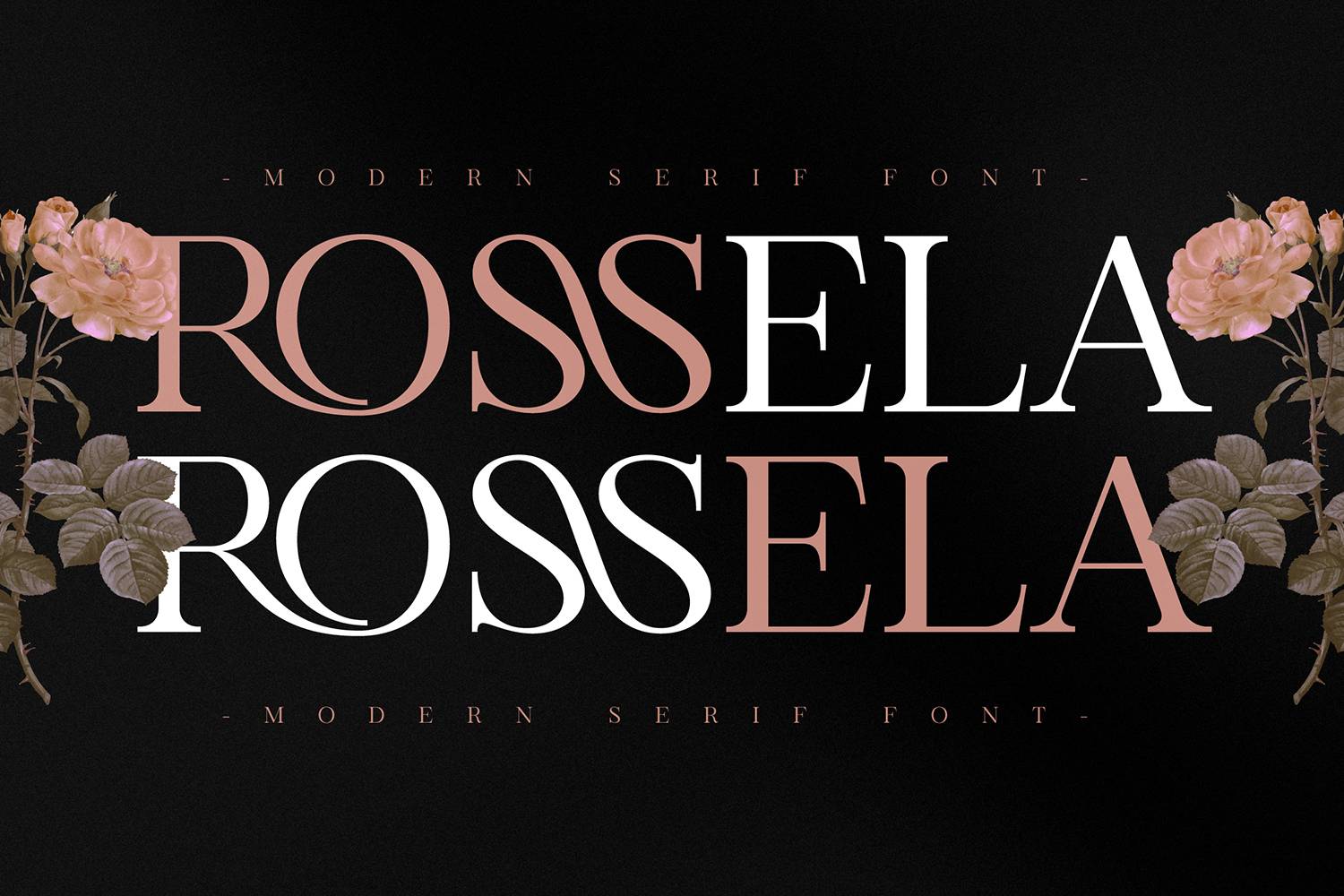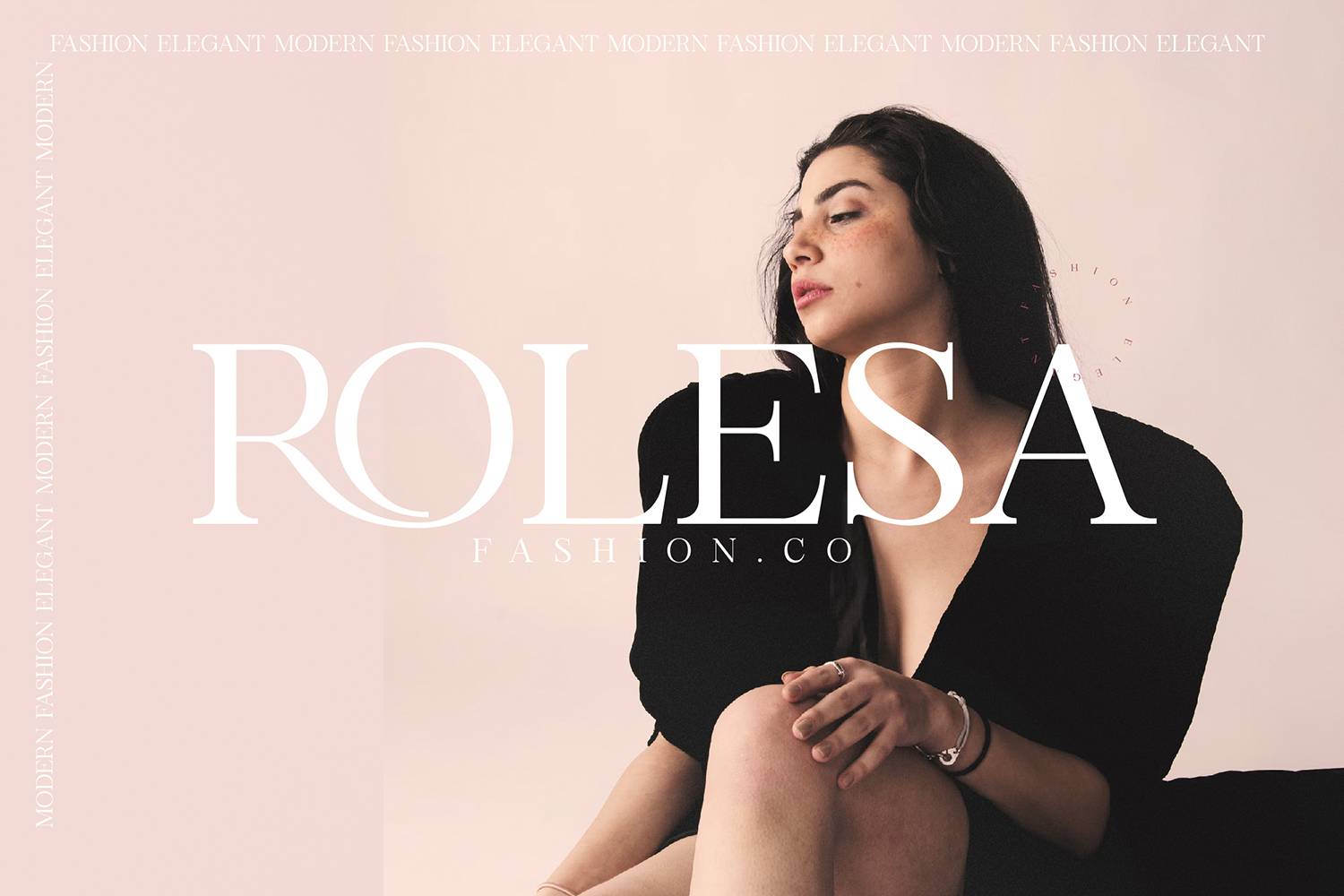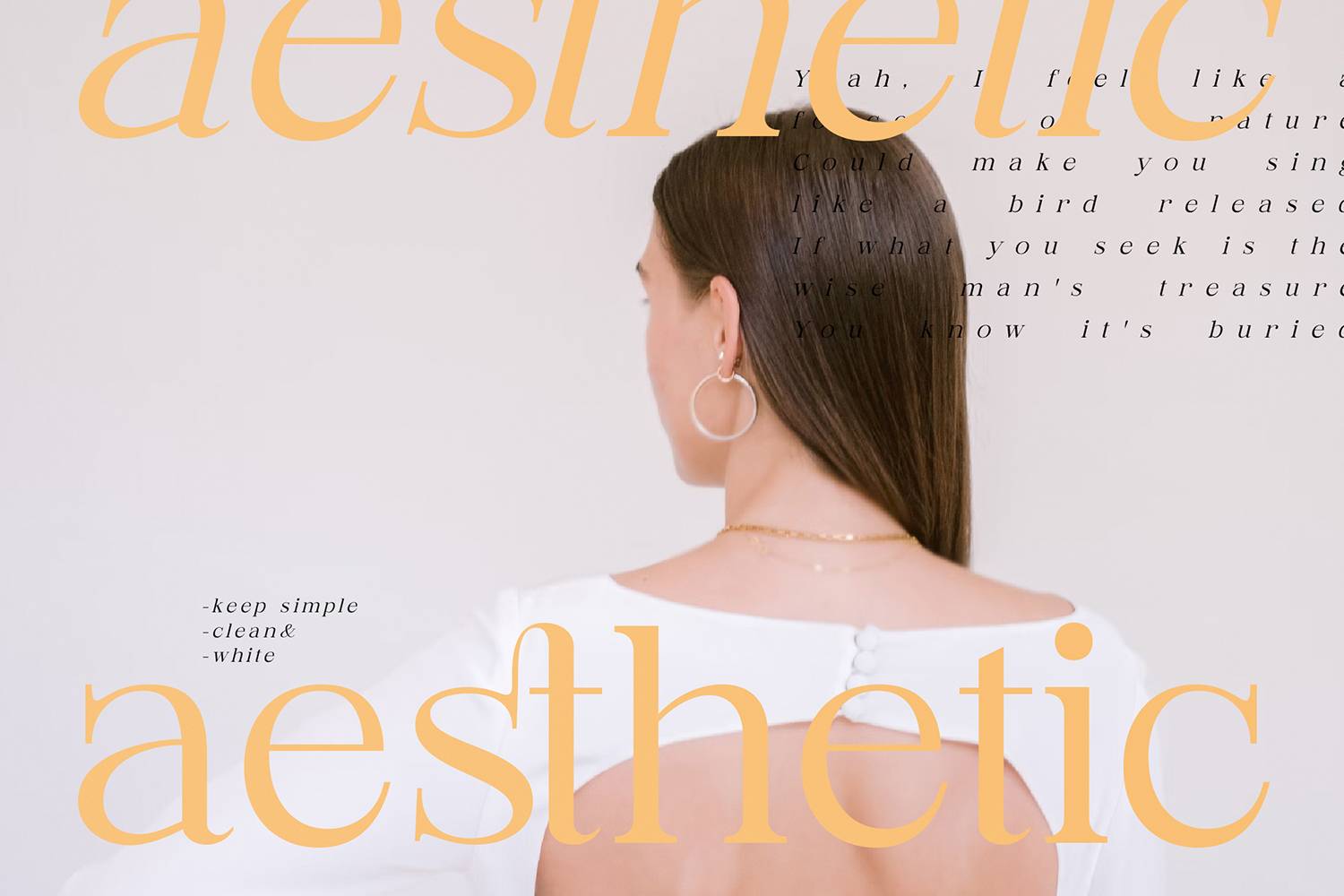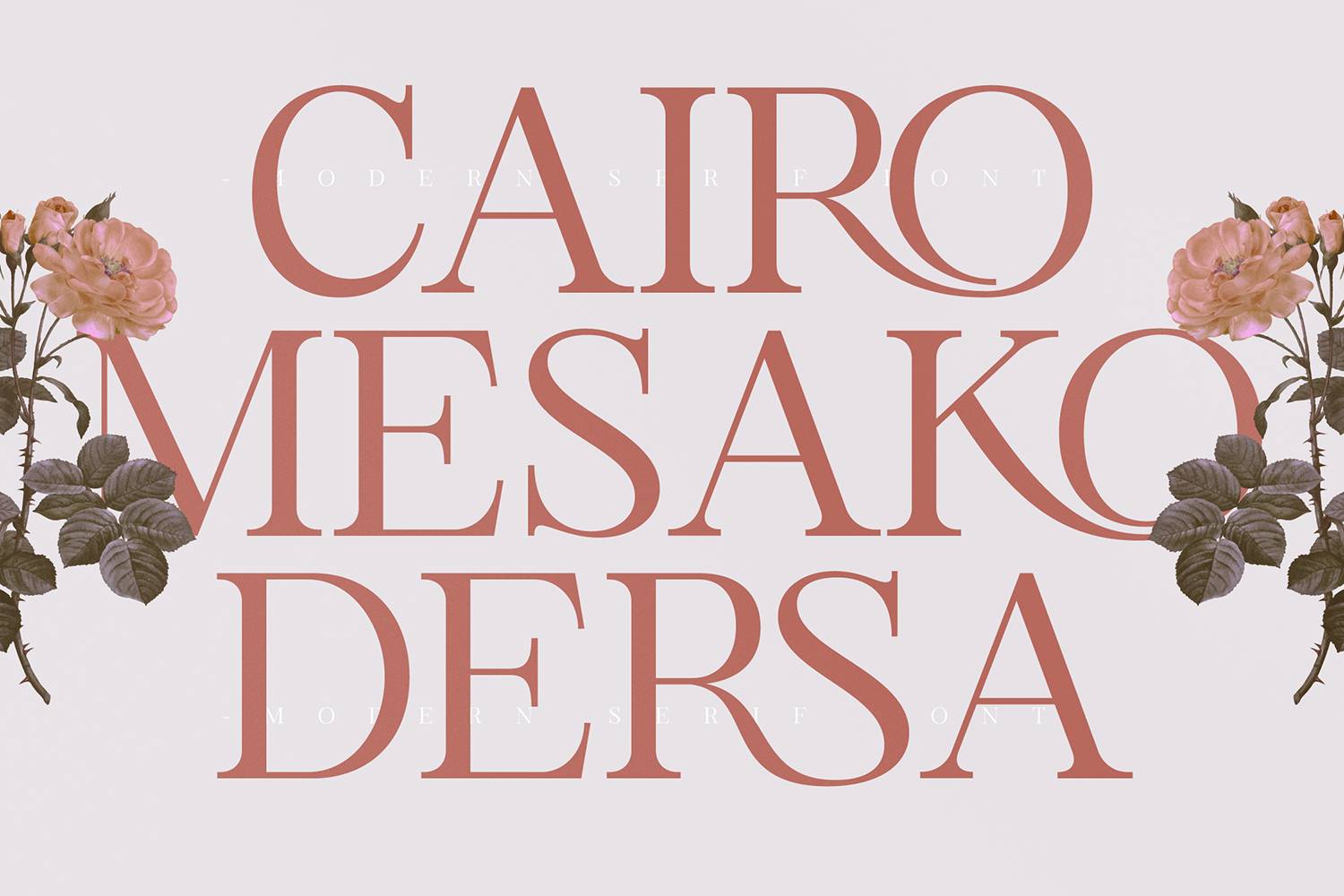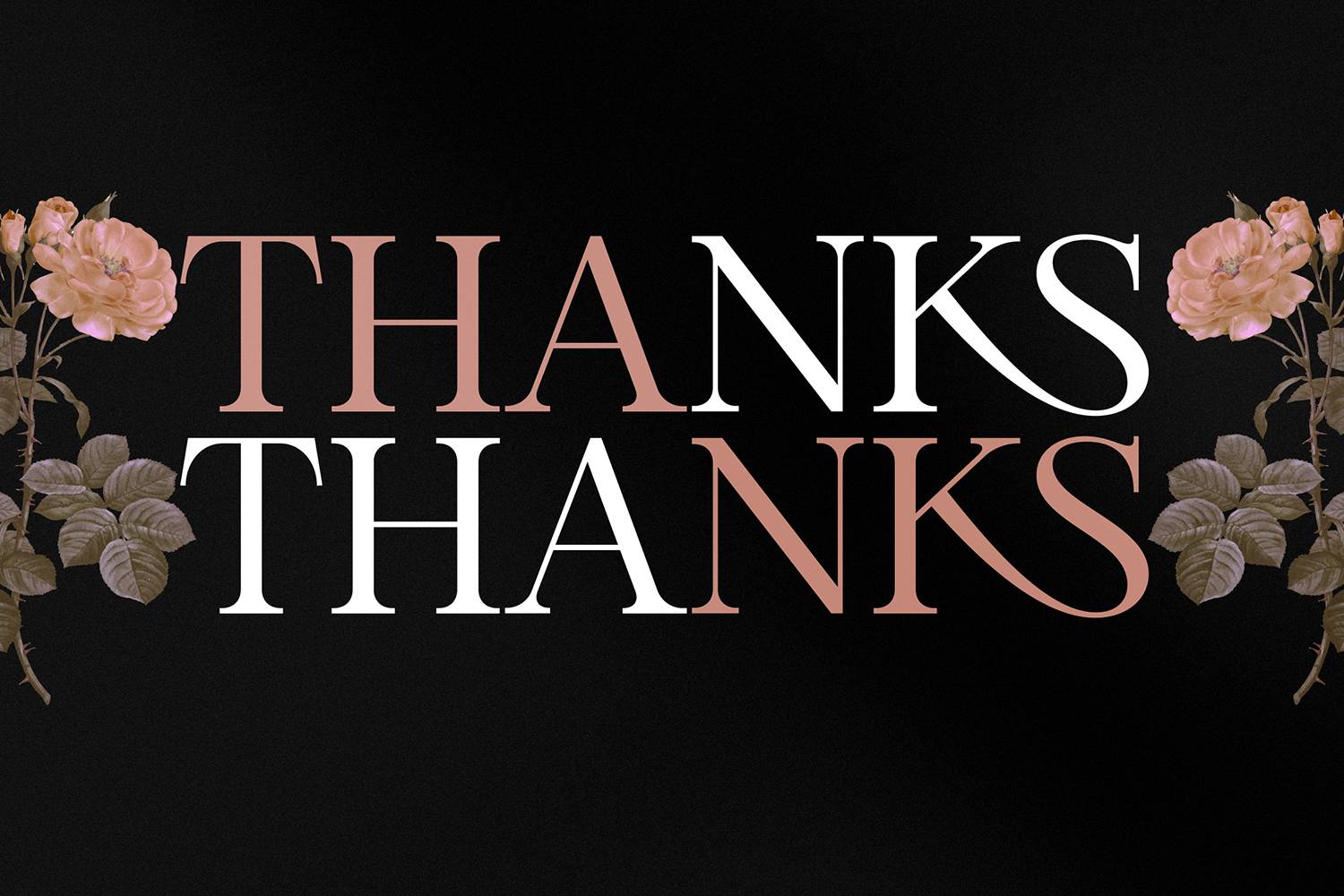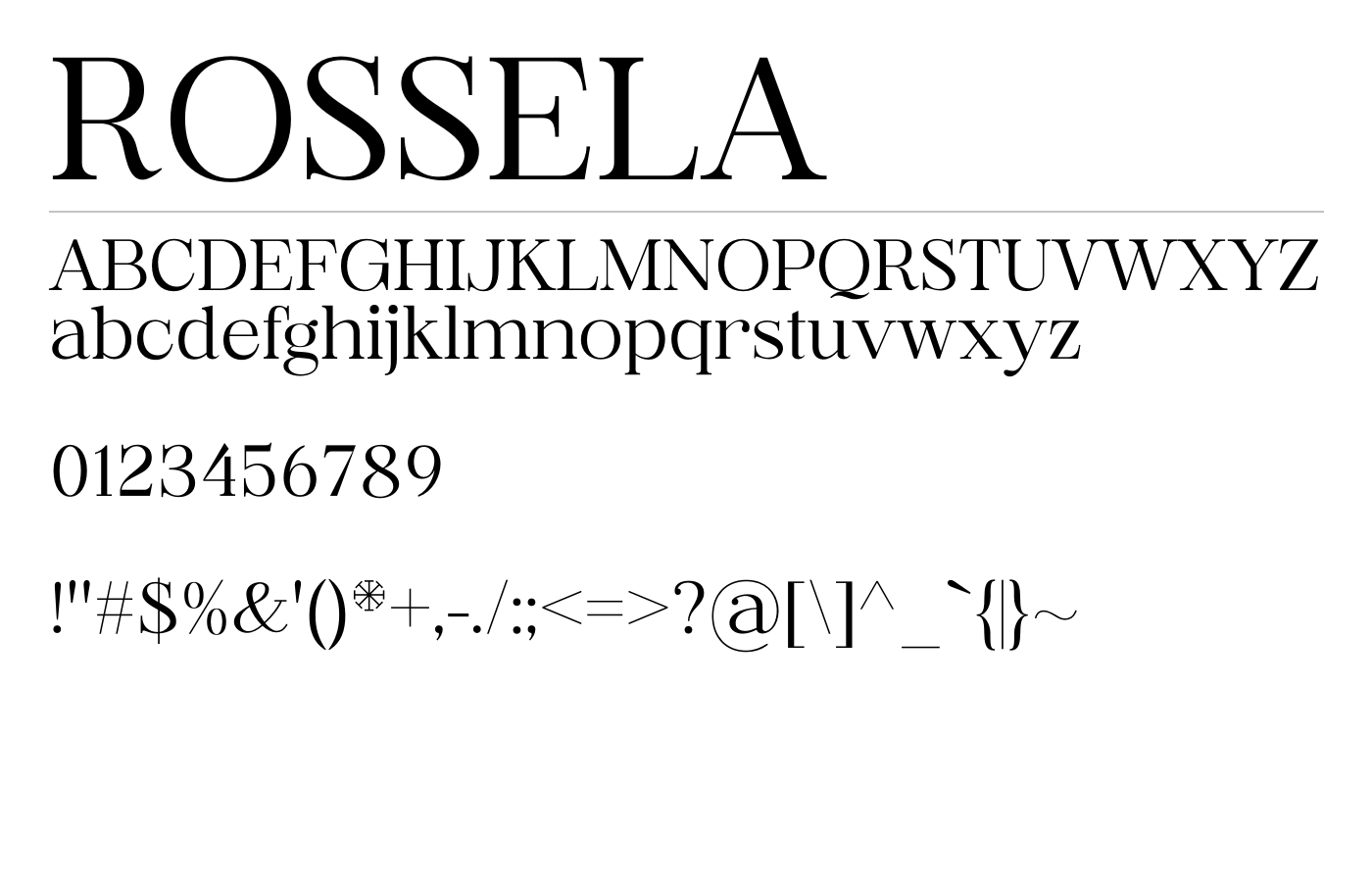
Rossela is an elegant serif font with a refined, high-contrast design featuring thin, delicate serifs and smooth, sharp strokes. Its classic, slightly condensed letterforms and distinctive details make it ideal for luxury branding, editorial headlines, and sophisticated print projects where a timeless yet stylish impression is desired. This font’s graceful personality lends itself well to fashion, editorial, and upscale packaging, combining readability with a touch of sophistication.
Rossela Font